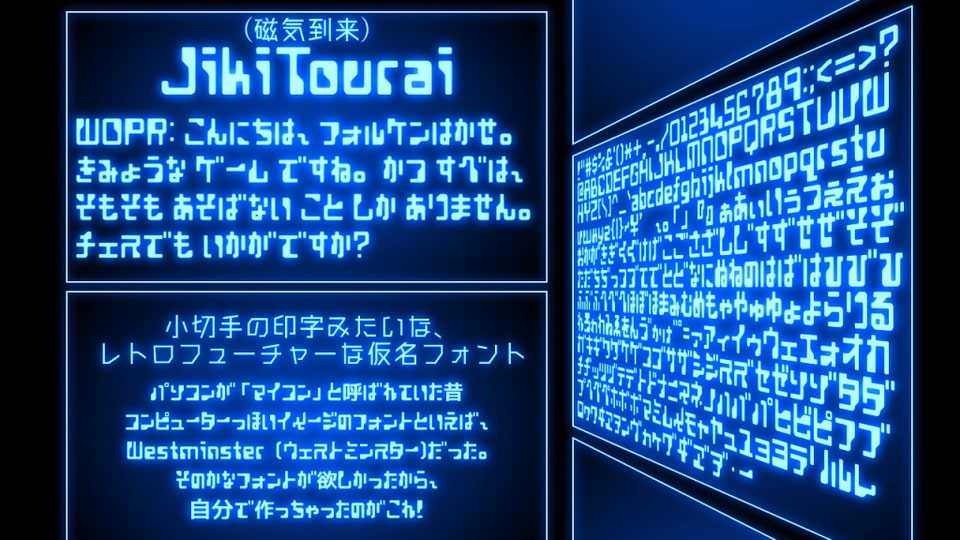
Download JikiTourai font, a hiragana and katakana typeface based on the font Minicomputer, which was in turn based on Westminster, which was in turn based on MICR E-13B magnetic printing used on cheques.